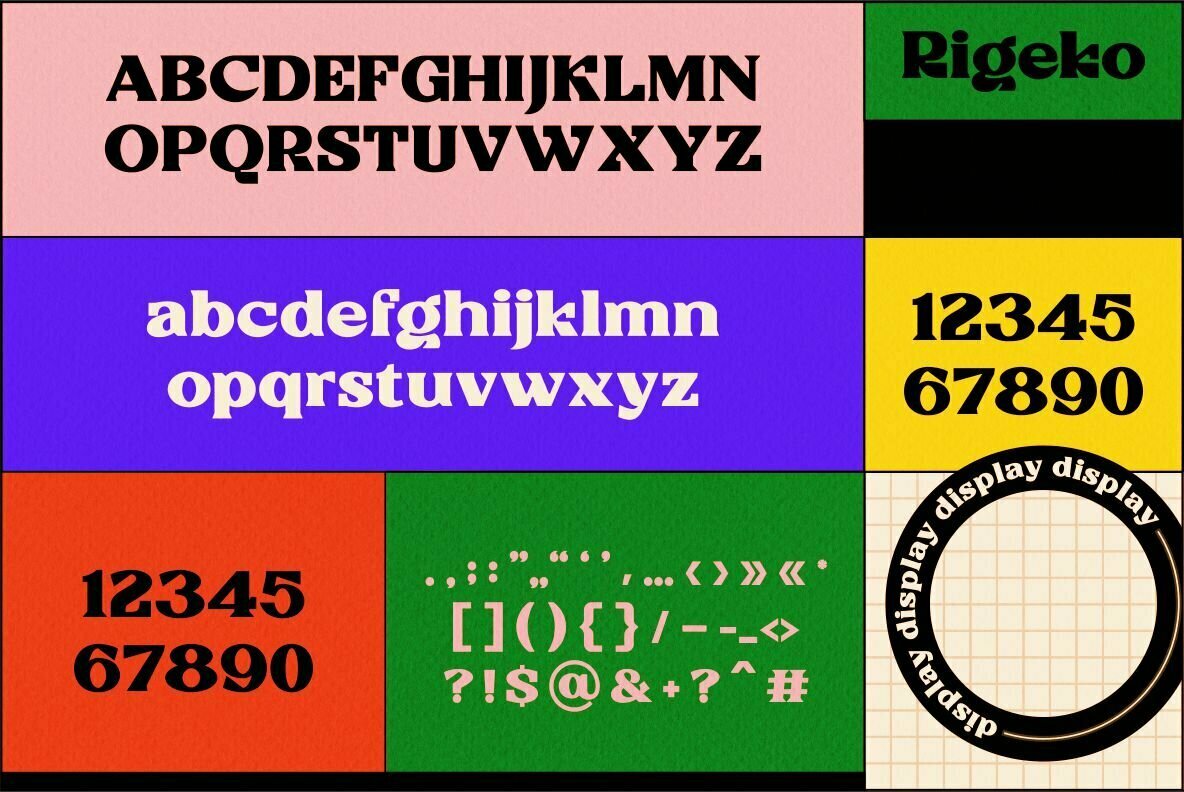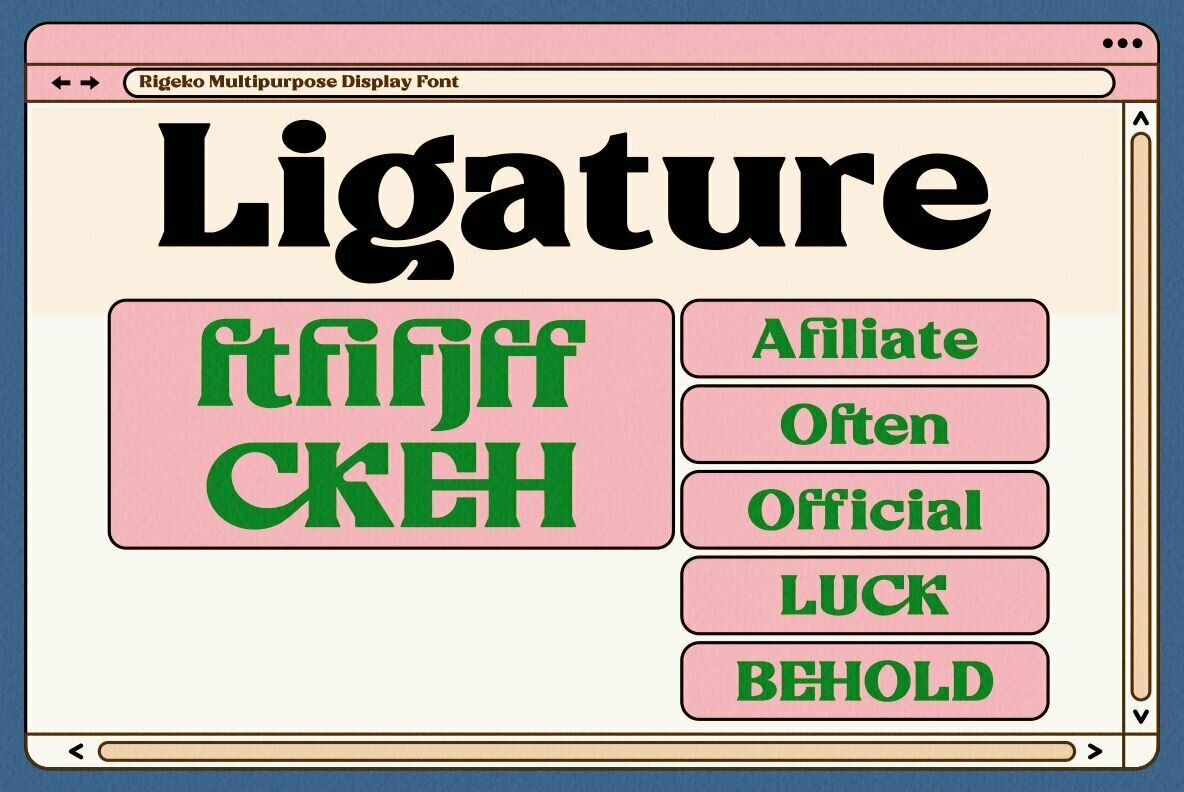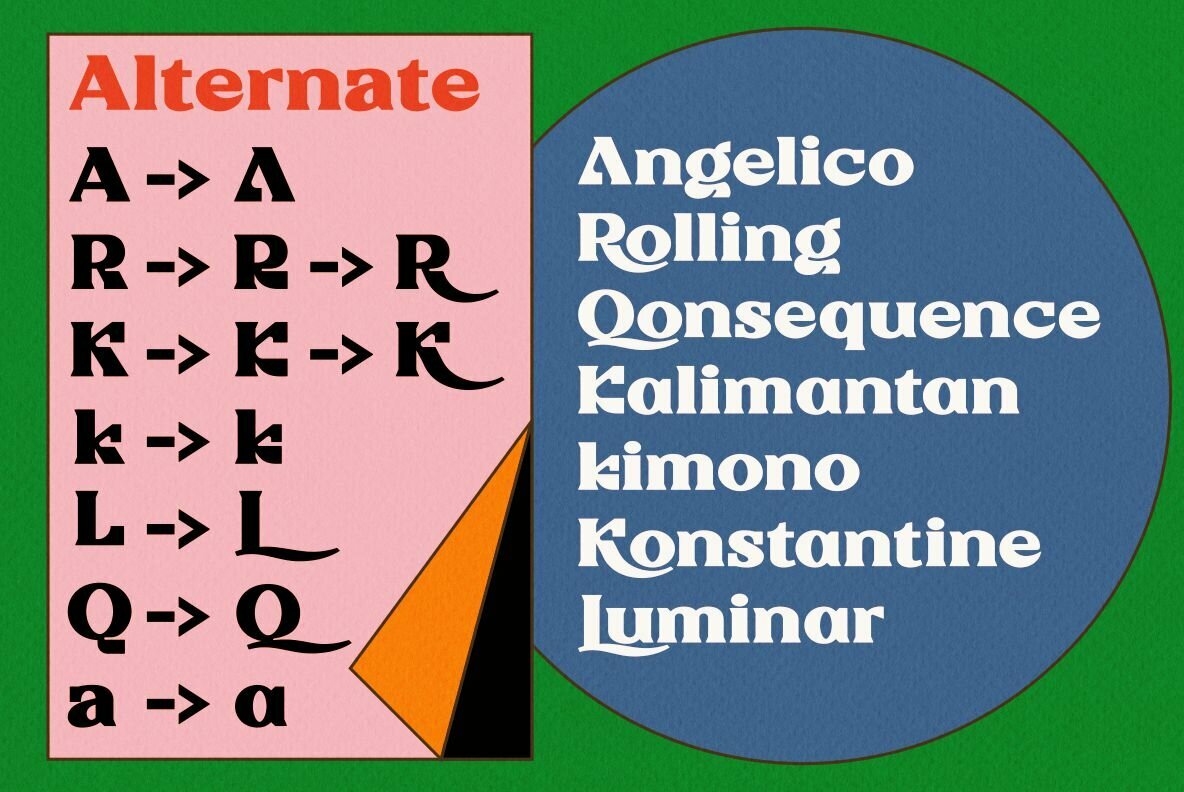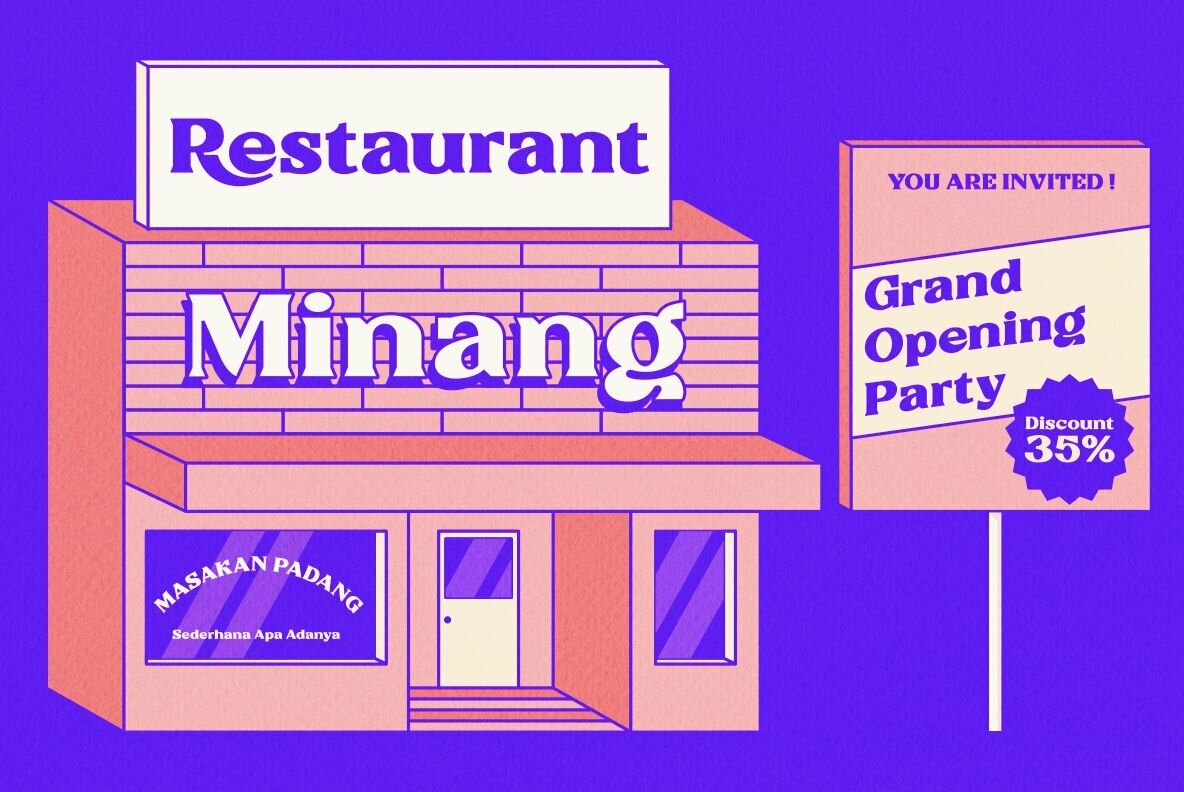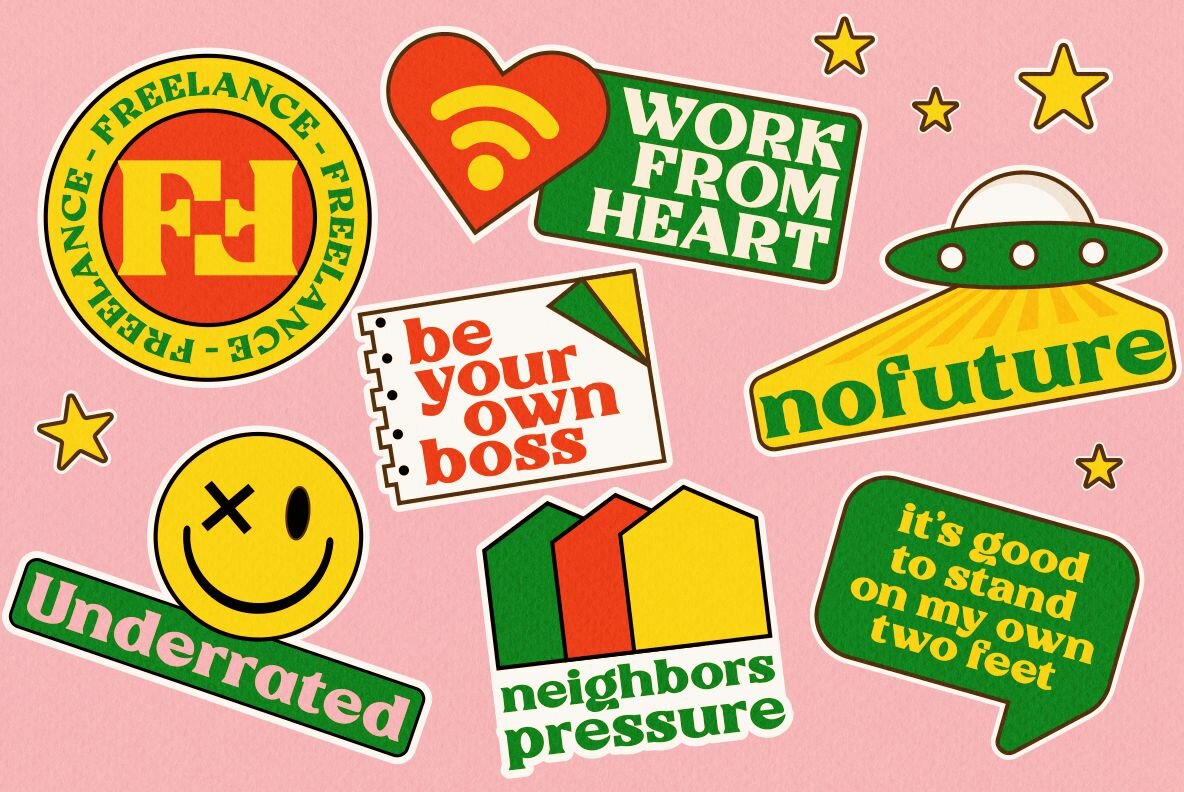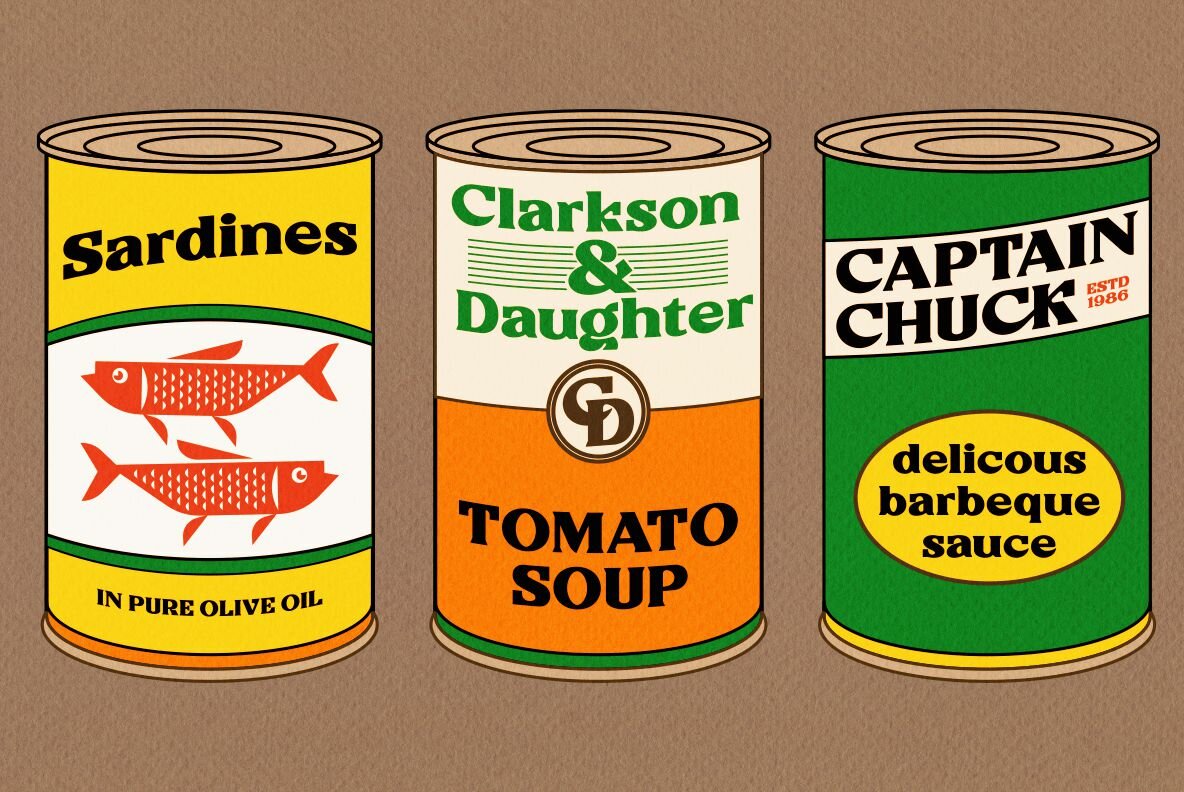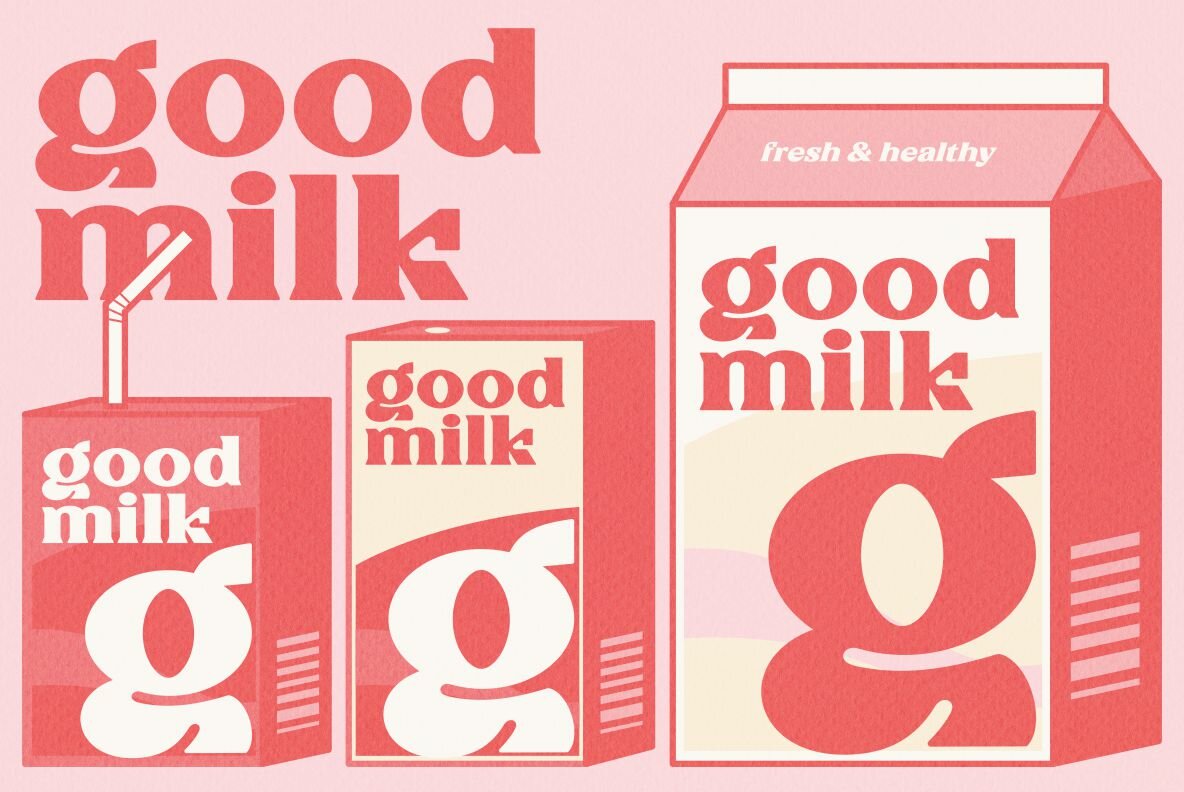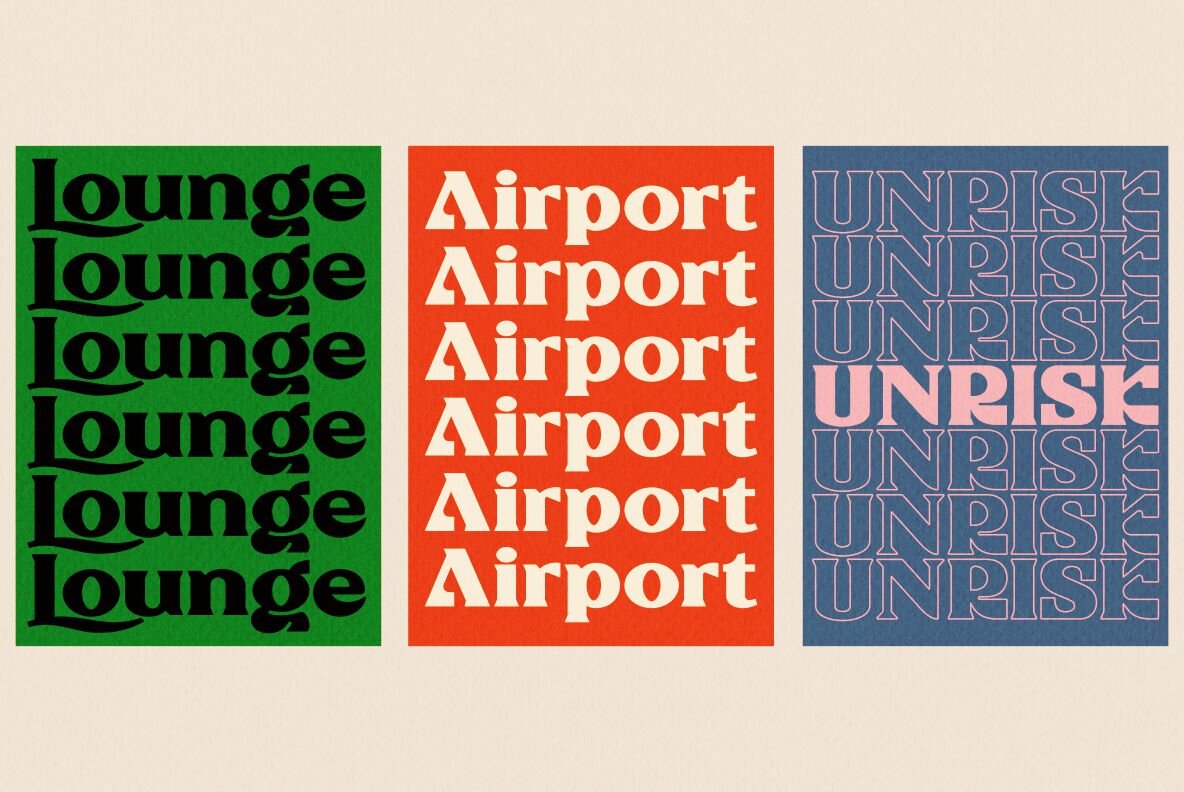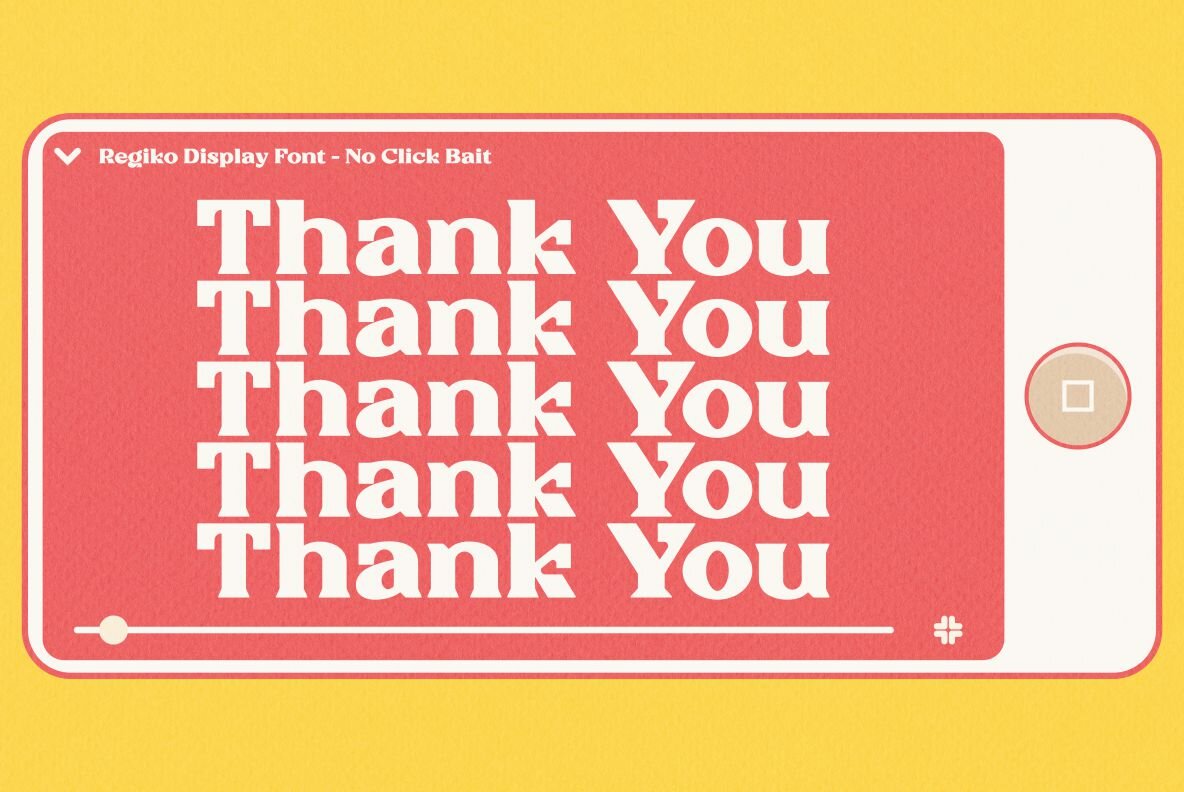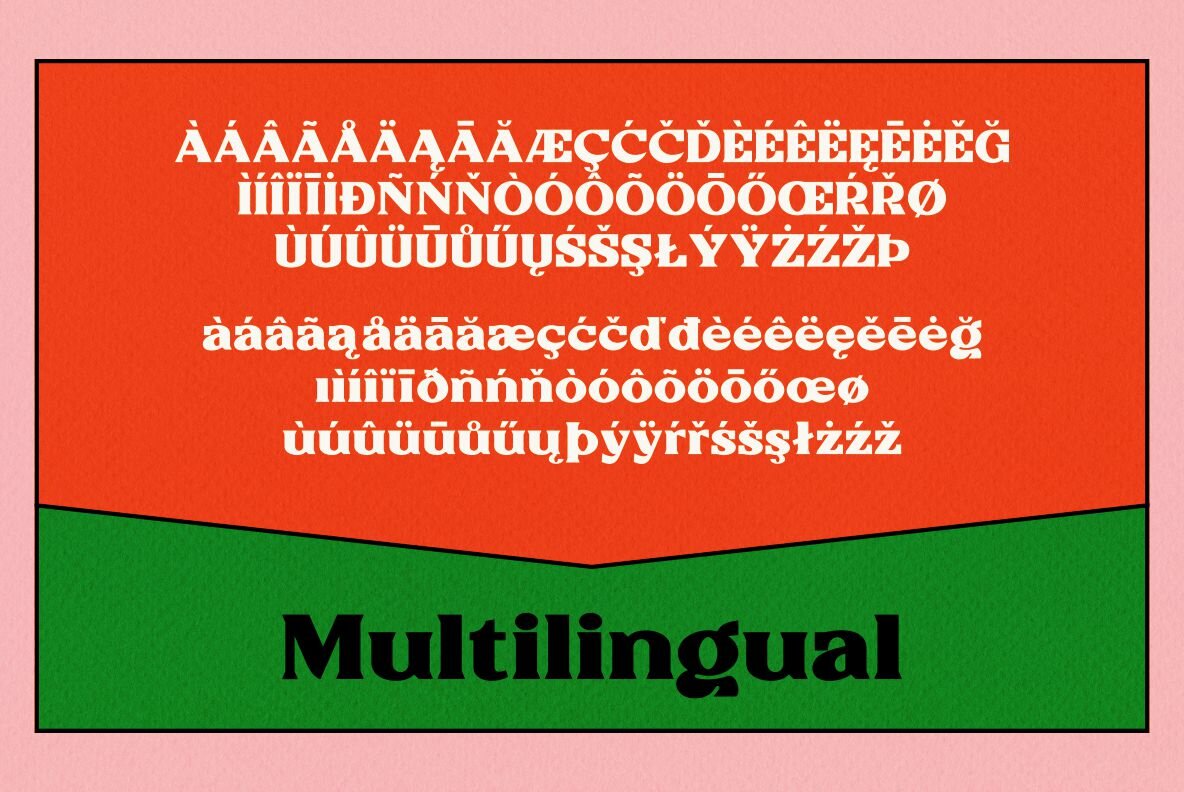
Rigeko Font
Rigeko
The Rigeko font by Bagerich Type Foundry blends multipurpose functionality with a unique design aesthetic, making it an ideal choice for both modern and vintage projects. Its dynamic character and adaptability allow it to shine in various applications, such as branding, print templates, and logos.Rigeko: A Versatile Display Font for Modern and Vintage Designs
Bagerich Type Foundry is an independent digital type foundry with a focus on display typefaces. founded in Bandung, Indonesia in the middle of 2019 by graphic designer, Reza Rasenda and Riska Candra Dewi.